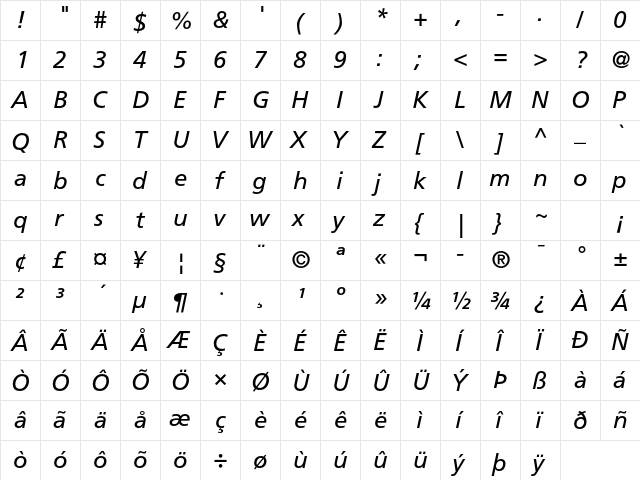
Frutiger LT Std 56 Italic Font Preview
| Designer | Adrian Frutiger |
Design Context for Frutiger LT Std Typeface
Frutiger LT Std takes a measured approach to typography — its balanced proportions and neutral character make it a reliable workhorse for both digital and print work. The dynamic lean of this cut emphasises speed and emphasis in any layout. Its slender proportions lend an understated elegance to any composition.
Pro Tip: Try Frutiger LT Std for annotation and caption copy alongside an upright companion — the contrast in angle creates a dynamic but ordered typographic system.